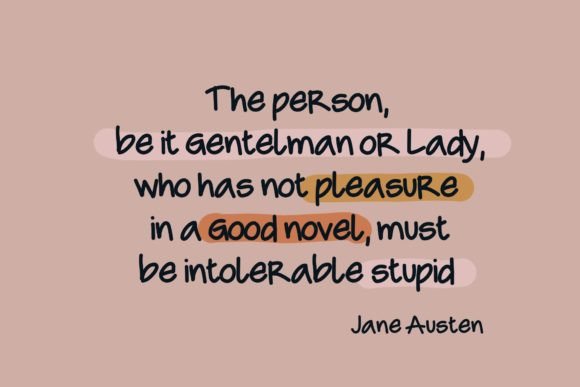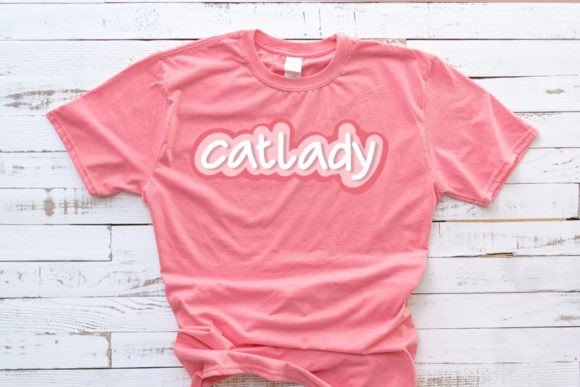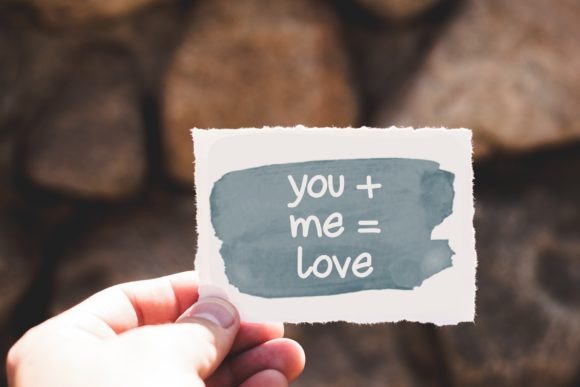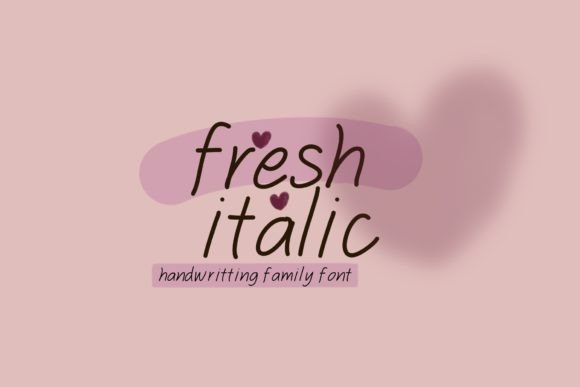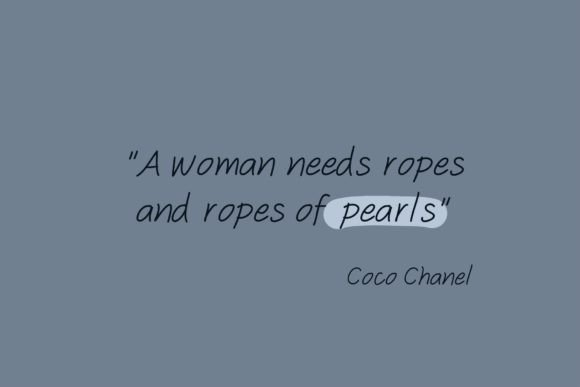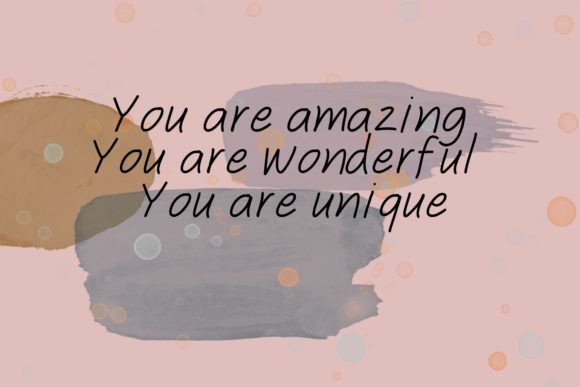
The Joy of Imperfect Handwriting
We’ve all been there – scribbling down a grocery list, jotting down a phone number, or signing a document. Our handwriting may not be perfect, but it’s uniquely ours, full of quirks and character. It’s this imperfection that makes handwritten notes so endearing, and it’s what inspired the creation of the Fresh Regular Font.
This font is designed to capture the essence of our imperfect handwriting, with subtle variations in letterform and spacing that give it a friendly, approachable feel. By embracing the imperfections, Fresh Regular Font offers a fresh alternative to the sleek, uniform fonts that dominate digital design. For designers, it’s a valuable tool for adding personality and warmth to their work.
Fresh Regular Font Key Features
- Font Family: Fresh Regular Font (a modern sans-serif font)
- Unique Characteristics: Clean lines, open counters, and a friendly feel make it perfect for body text, headlines, and signage
Designer Review: Fresh Regular Font
Overall, I was pleasantly surprised by the Fresh Regular Font. Here are some of its standout features: ✨
- Unique and modern design: The Fresh Regular Font has a distinctive look that sets it apart from more common fonts.
- High legibility: Despite its modern appearance, the font is surprisingly easy to read, making it suitable for a wide range of applications.
- Flexibility: Fresh Regular Font can be used in both digital and print media, and its versatility is one of its strongest assets.
However, there are also some limitations to consider: ⚠️
- Limited character set: While the font itself is well-designed, the character set is somewhat limited, which may be a problem for users who need to access a wide range of special characters.
- Not suitable for very small sizes: While the font is highly legible, it can start to look blurry and difficult to read at very small sizes.
In terms of overall impression, I would say that Fresh Regular Font is a solid choice for designers who want a modern and stylish font that’s easy to read. While it may not be perfect, it’s a great option for many applications, and its flexibility and unique design make it well worth considering.
Tips for Getting the Most Out of Fresh Regular Font
Use Fresh Regular Font for body text and headings to create a clean and modern design.
Experiment with different font sizes and colors to emphasize important information.
Combine Fresh Regular Font with other fonts for a unique and stylish look.
Use Fresh Regular Font for:
– Blog posts and articles
– Social media posts and captions
– Presentations and reports
– Business cards and resumes
Alternatives to “Fresh Regular Font” for Designers
Open Sans is a clean and modern sans-serif font. It’s suitable for body text, headings, and titles. Open Sans is more readable than Fresh Regular Font, especially in digital displays. It’s also more versatile and can be used in a wide range of designs.
Use Open Sans when you need a clean, modern look and high readability. It’s a popular choice for web and mobile designs.
Montserrat is a geometric sans-serif font with a strong, urban feel. It’s ideal for titles, headings, and short body text. Montserrat is more condensed than Fresh Regular Font, making it perfect for small spaces or titles. It’s also more versatile and can be used in various design contexts.
Use Montserrat when you need a strong, urban feel and want to create a sense of contrast with your body text.
Lato is a modern sans-serif font with a friendly, approachable feel. It’s suitable for body text, headings, and titles. Lato is more rounded than Fresh Regular Font, making it perfect for designs that require a softer, more approachable look. It’s also highly legible and readable.